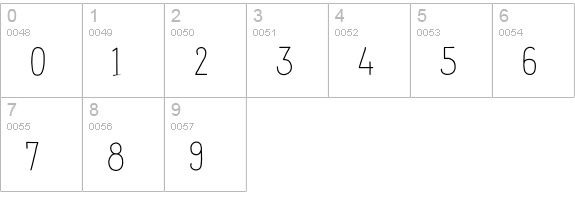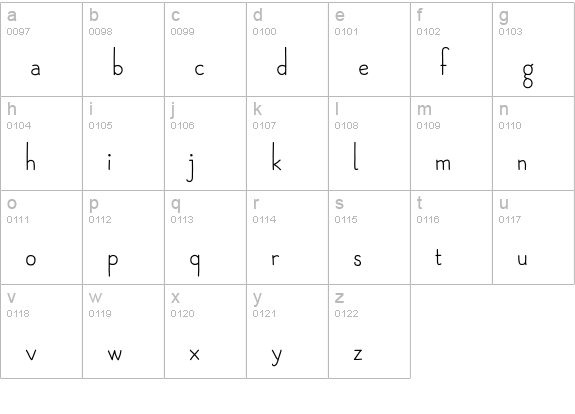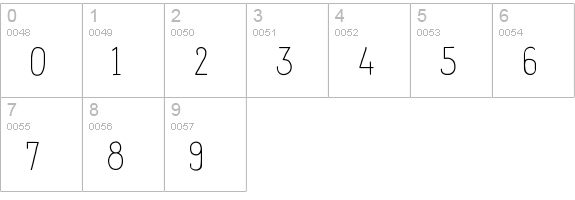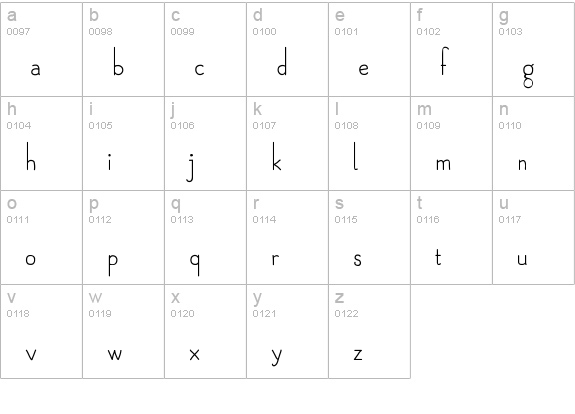
Minik Regular is the standard, neutral variant in the Minik typeface family \xE2\x80\x94 well suited to general body text, paragraphs, and standard typographic work.
Minik Regular font is a stylish and modern typeface that exudes elegance and sophistication. With its clean lines and sleek design, this font is perfect for a wide range of projects, from branding to web design. The versatility of Minik Regular makes it ideal for both headers and body text, ensuring your content looks polished and professional. What sets Minik Regular apart is that it is available for free download at FontsMarket.com. This means you can easily access this high-quality font without any cost, making it a valuable addition to your font collection. Whether you're working on a personal project or a professional design, Minik Regular is sure to elevate your work with its timeless appeal and refined aesthetic. Download Minik Regular today and bring a touch of sophistication to your next project.